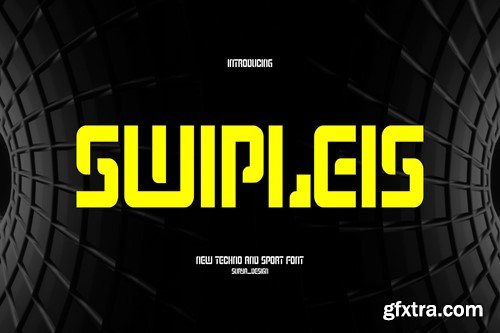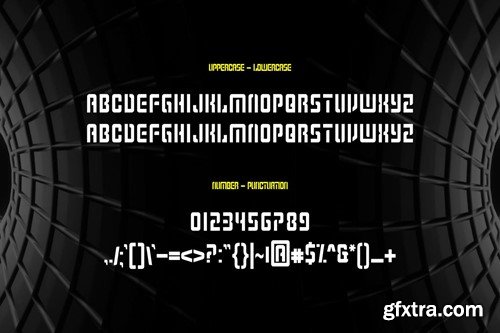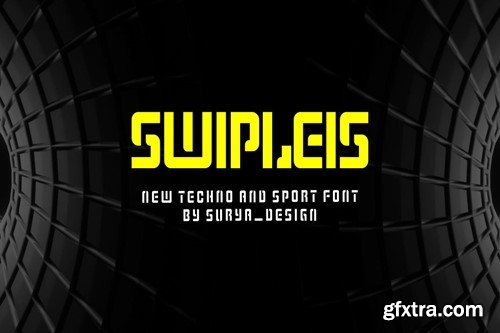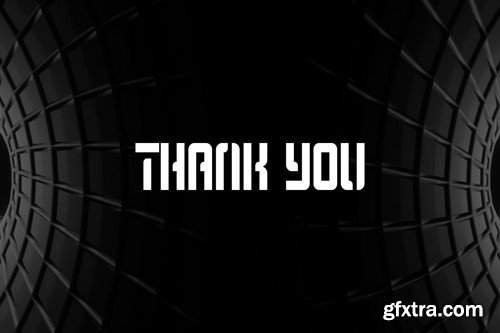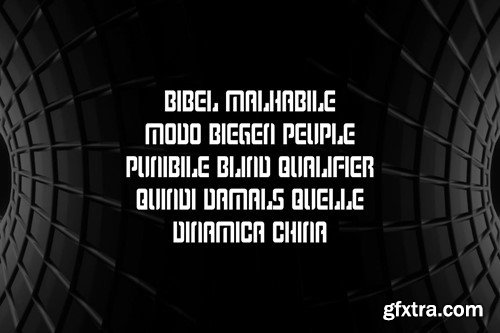
Swipleis Fonts
Introducing our new product Roghan Swipleis Fonts modern fonts. Roghan Adventure Fonts modern font is a bold and authentic display font. The font is suitable for any branding project like logo, t-shirt printing, esport, and many more. Outstanding in a wide range of contexts. Availlable -Otf -Ttf -Uppercase